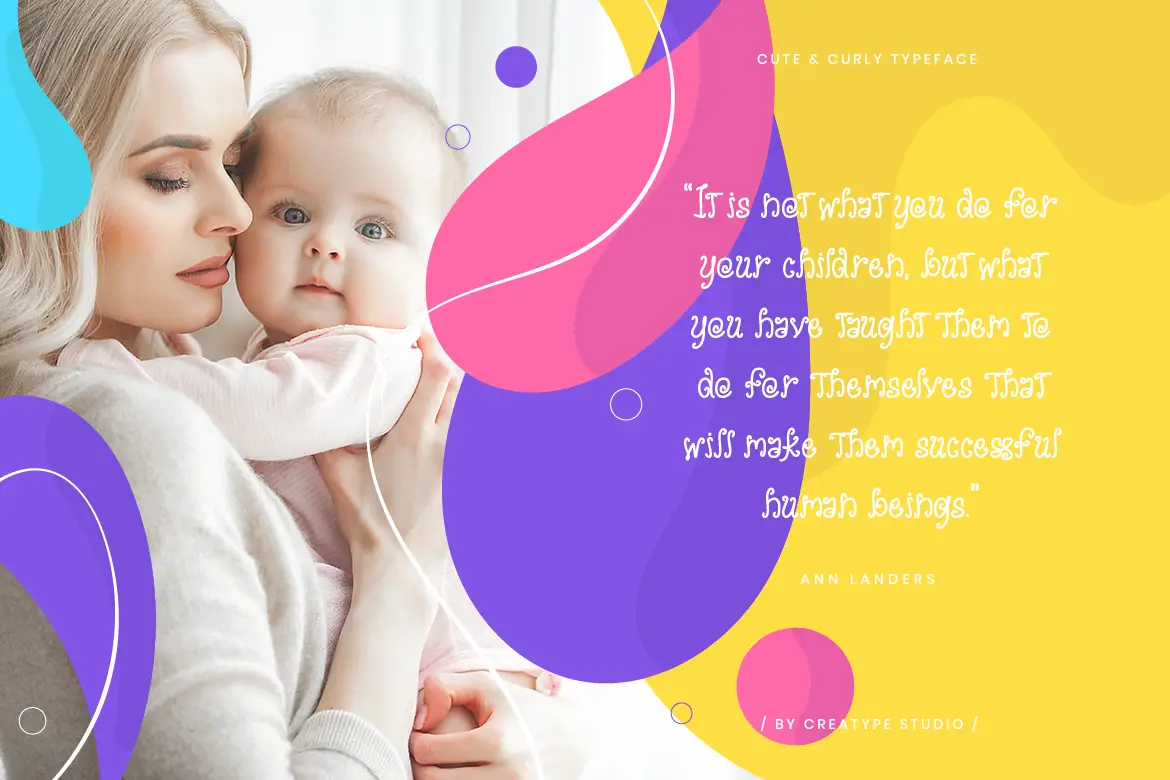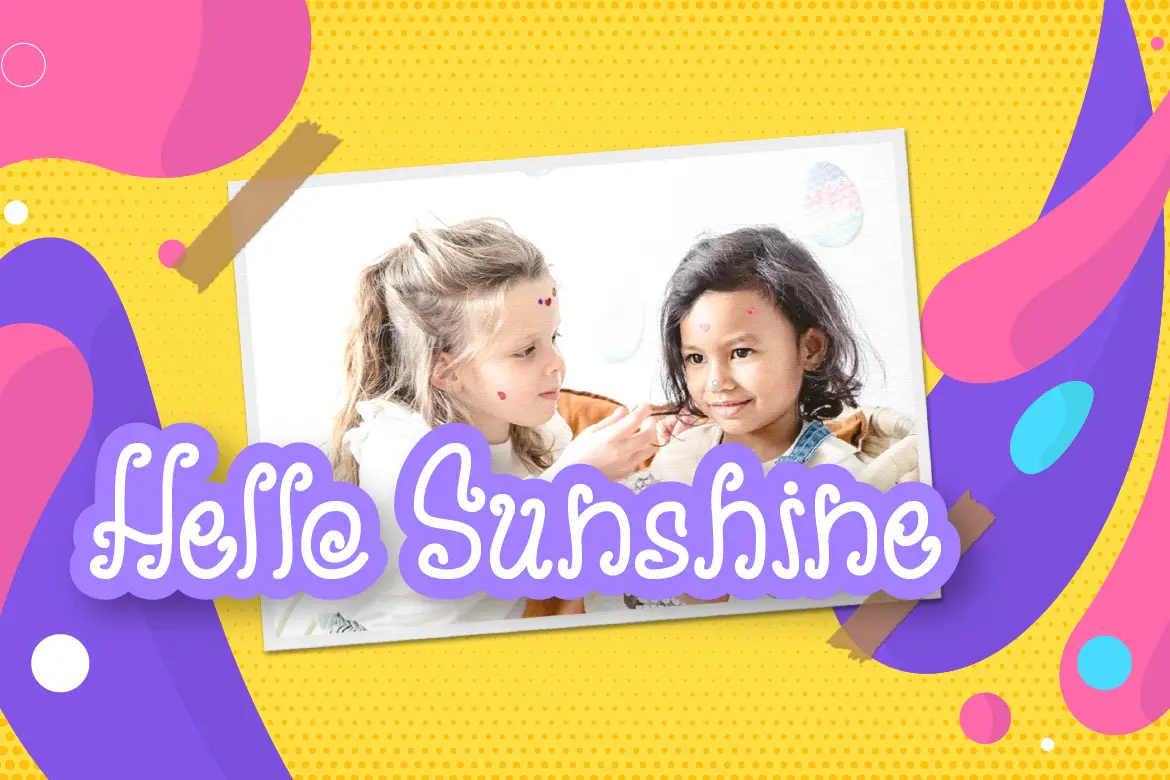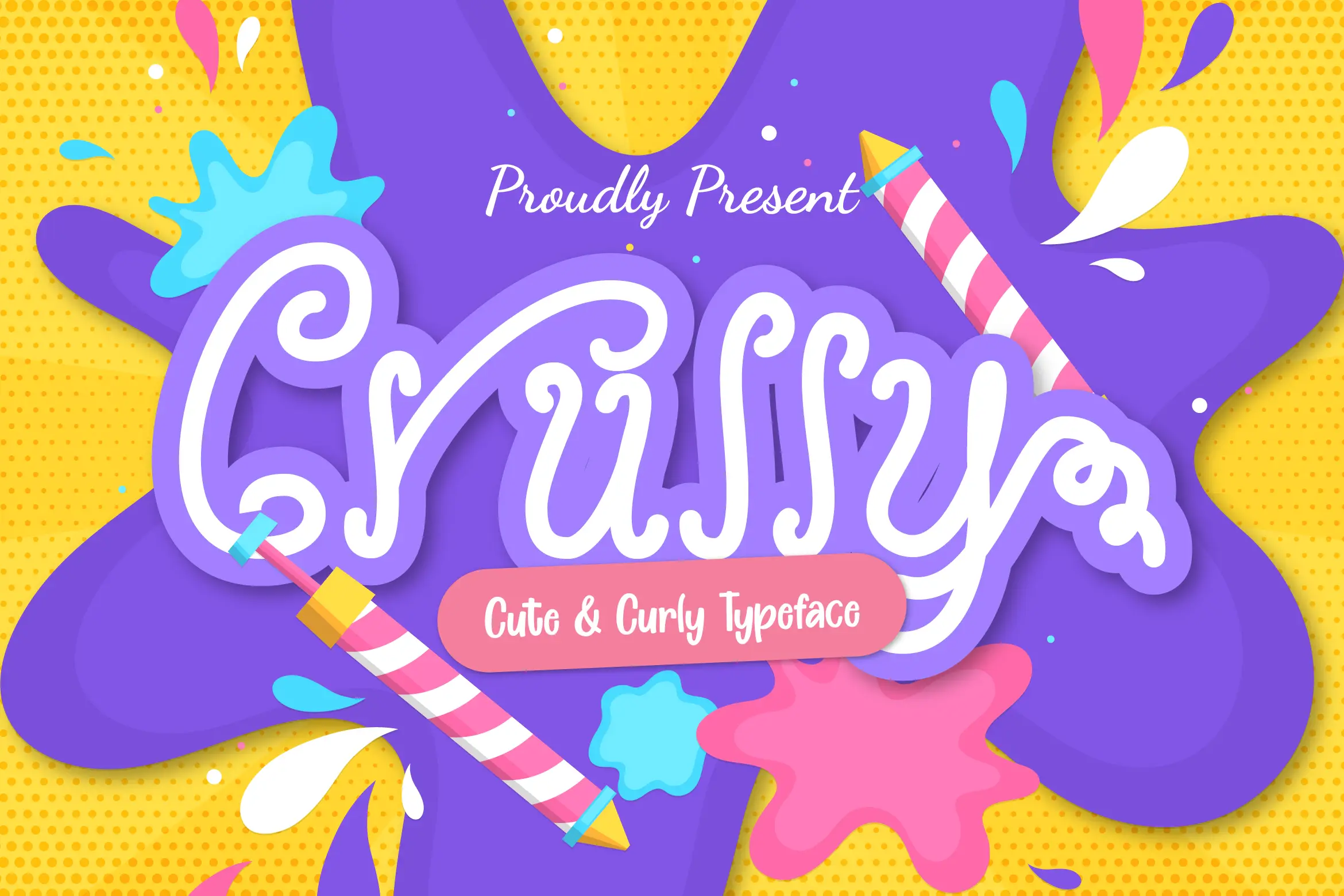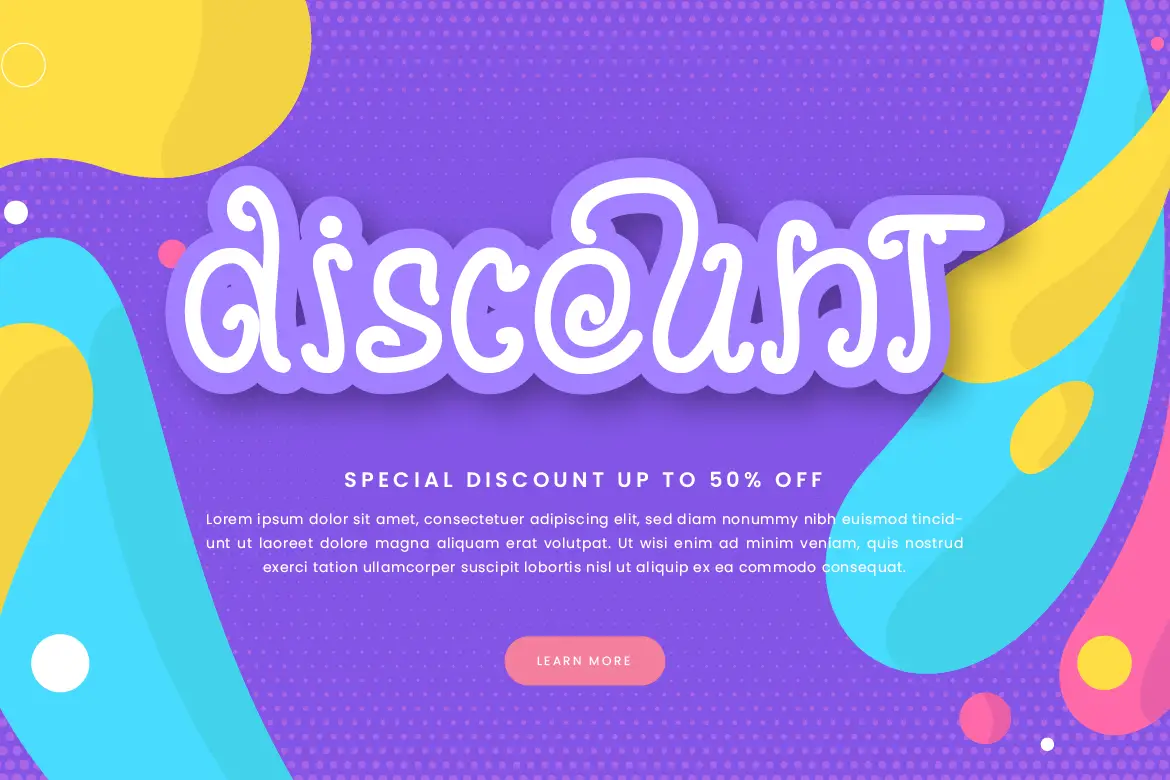
Crully Cute & Curly Typeface
The Crully Cute & Curly Typeface is a delightful font that brings a touch of whimsy to your designs. This typeface features playful curves and charming letterforms, making it perfect for a variety of creative projects.
• Unique curly design that adds personality
• Uppercase and lowercase letters for versatile use
• Multiple weights for added flexibility
• Ideal for branding, logos, and packaging design
• Great for invitations, greeting cards, and social media graphics
• Use in web design for a fun and engaging look